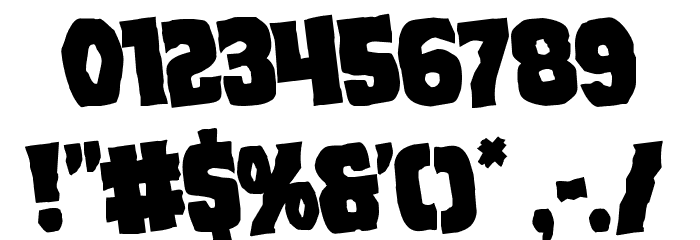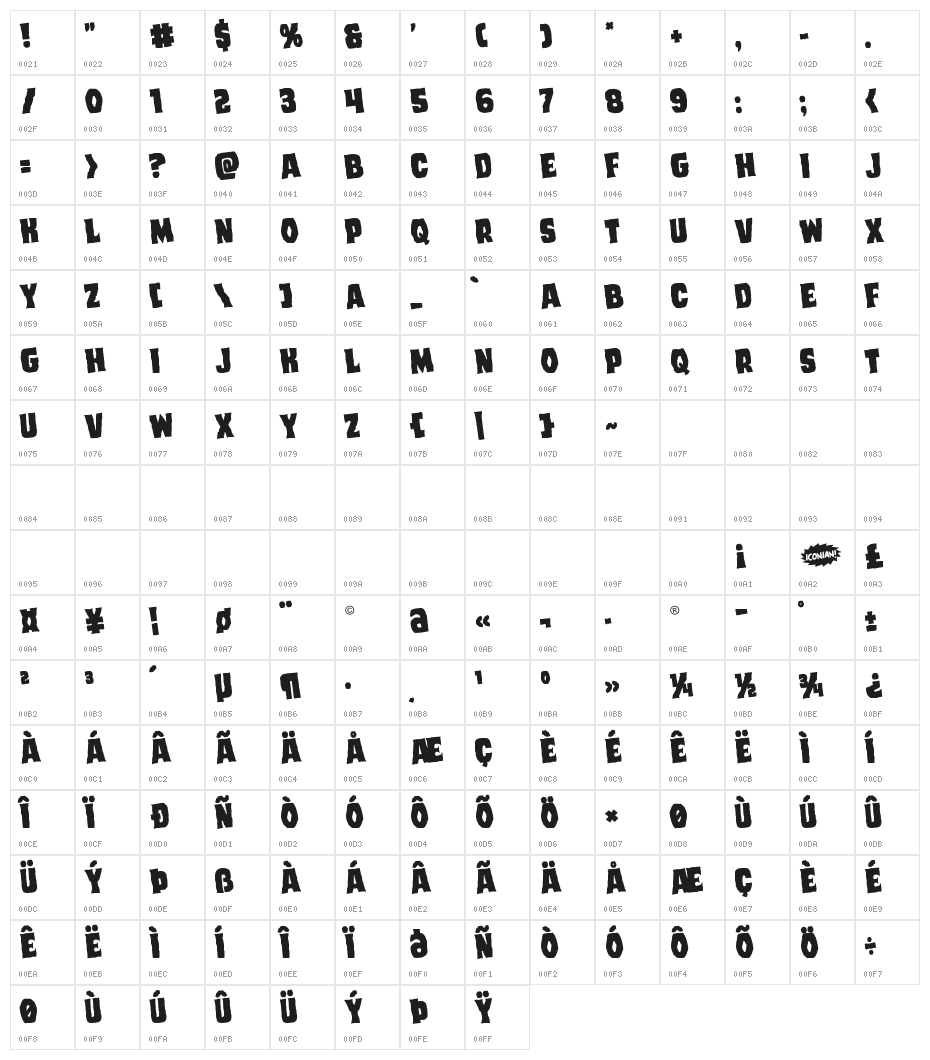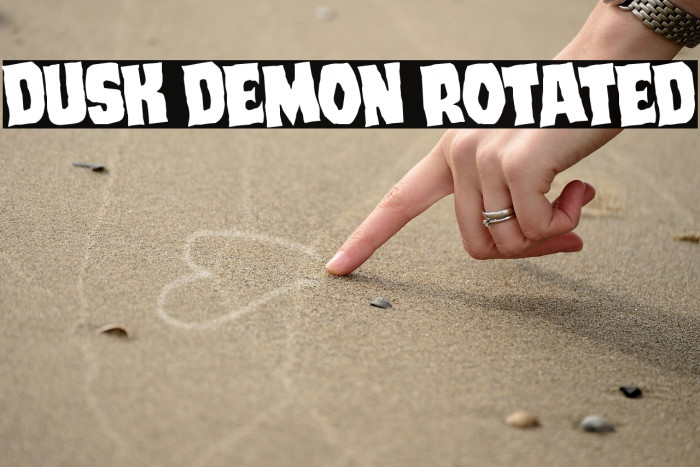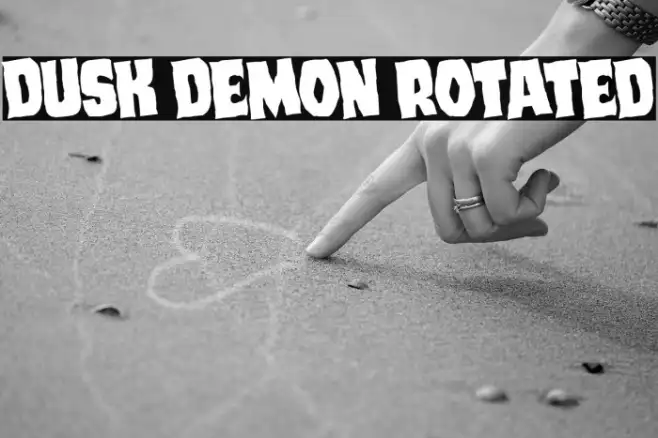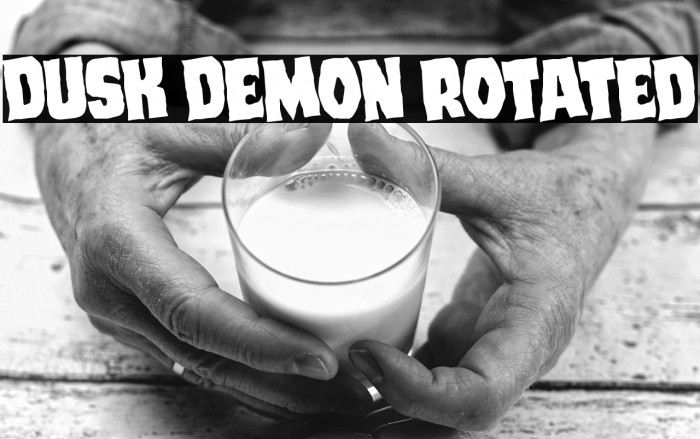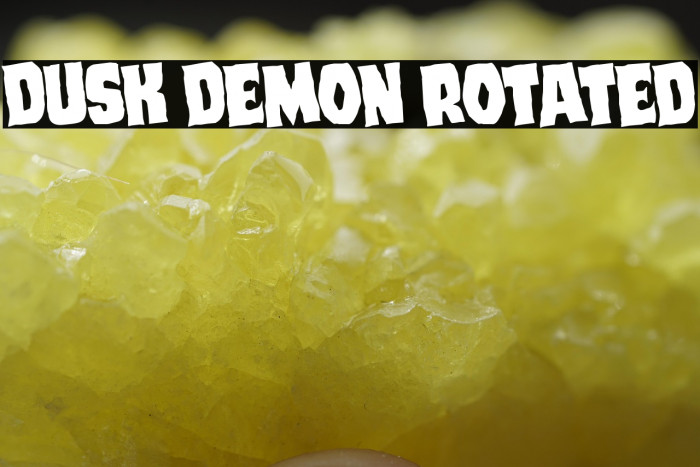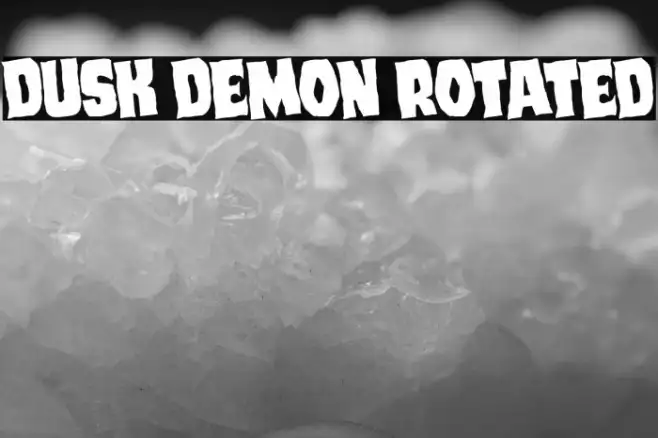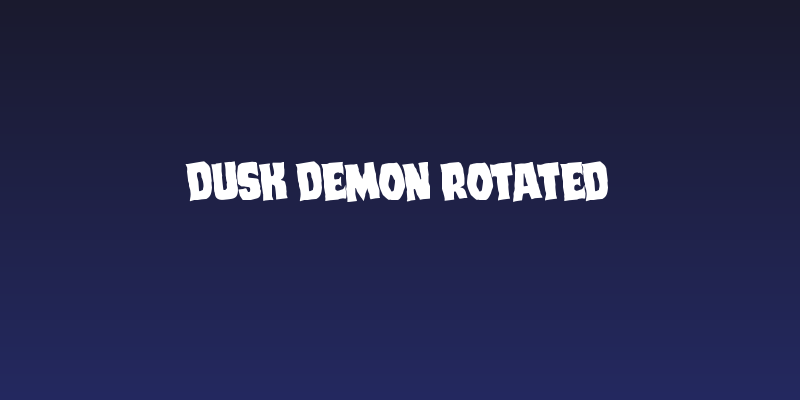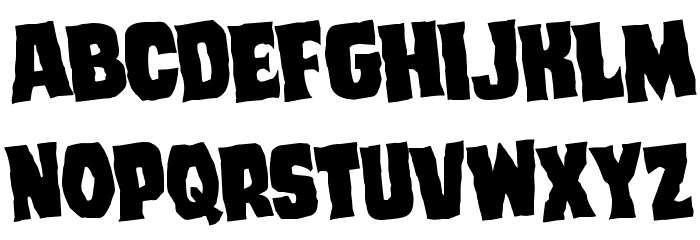
Dusk Demon Rotated Font
Dusk Demon Rotated Description
This font features a bold and rugged design with irregular, jagged edges that give it a distressed and edgy appearance. The characters are thick and heavy, creating a strong visual impact. The uppercase and lowercase letters maintain a consistent style, with a slightly condensed width that enhances its boldness. The numbers and special characters follow the same design principles, ensuring uniformity across all glyphs. This font's unique style makes it suitable for projects that require a dramatic and eye-catching typeface.
| Proposed Projects | Ideal for horror-themed posters, edgy branding, album covers, and graphic novels. |